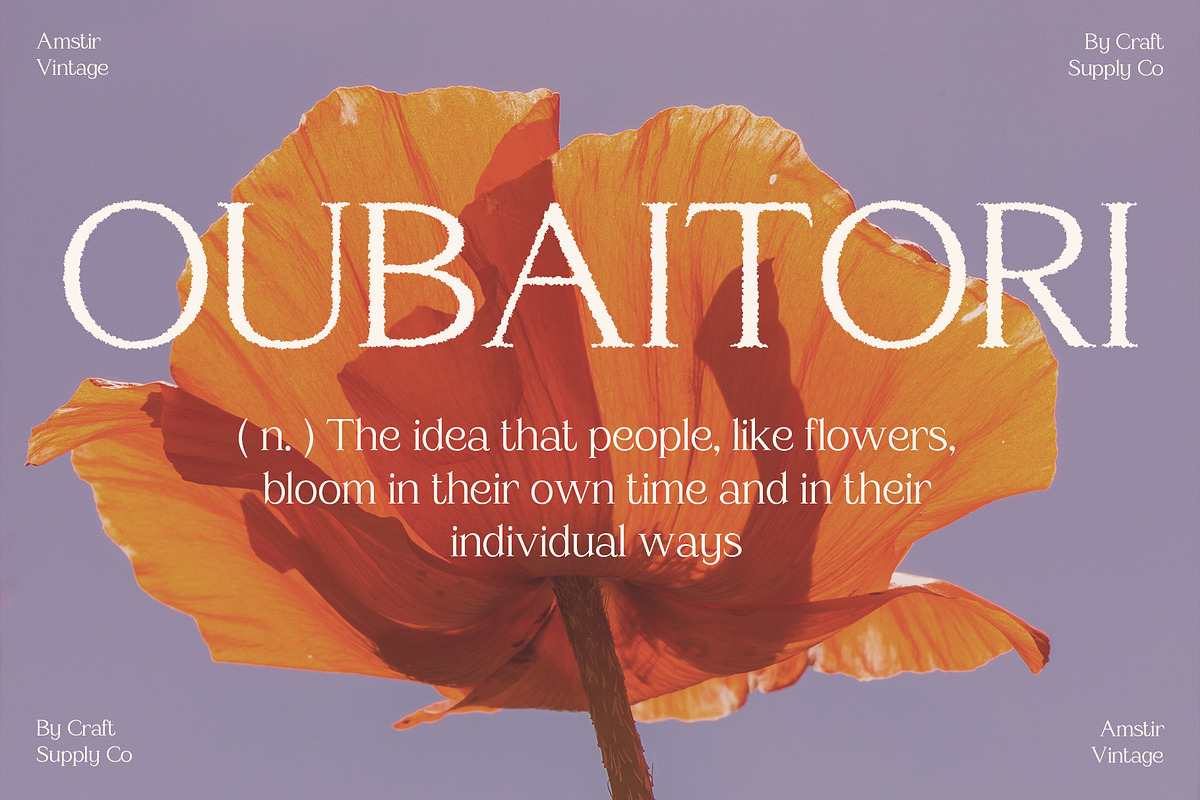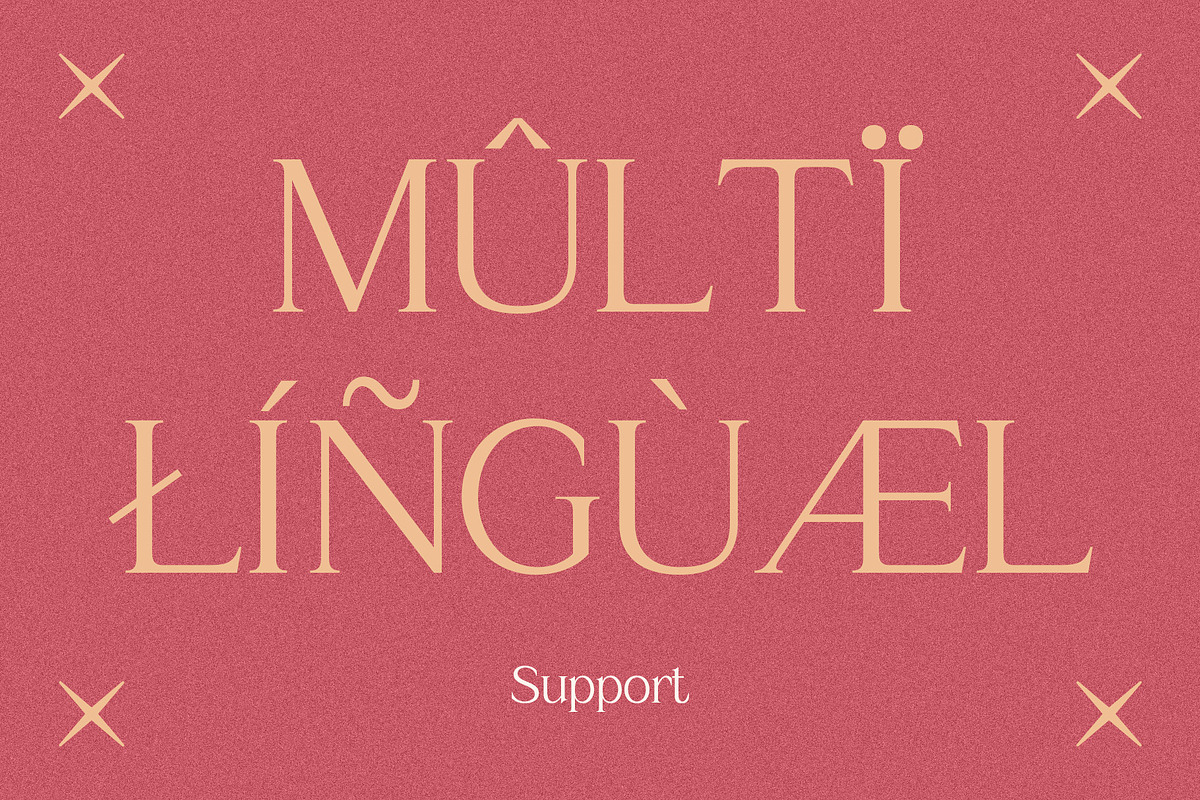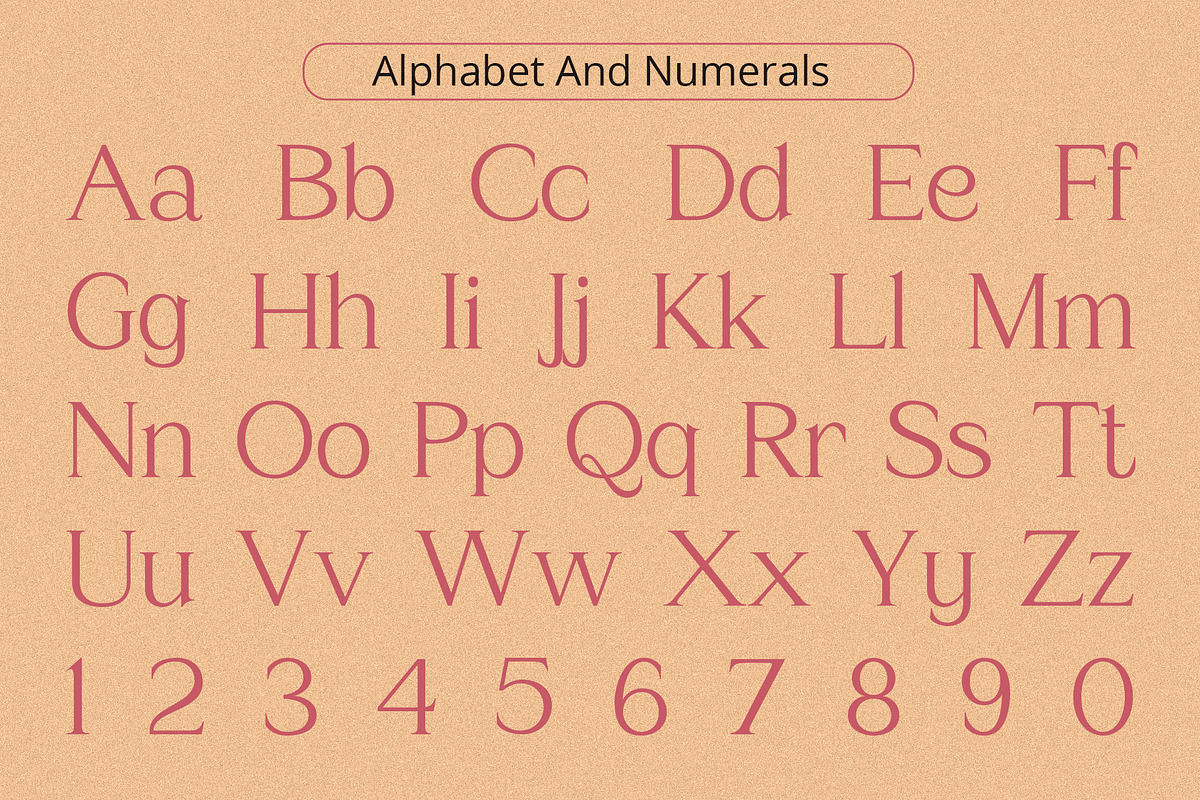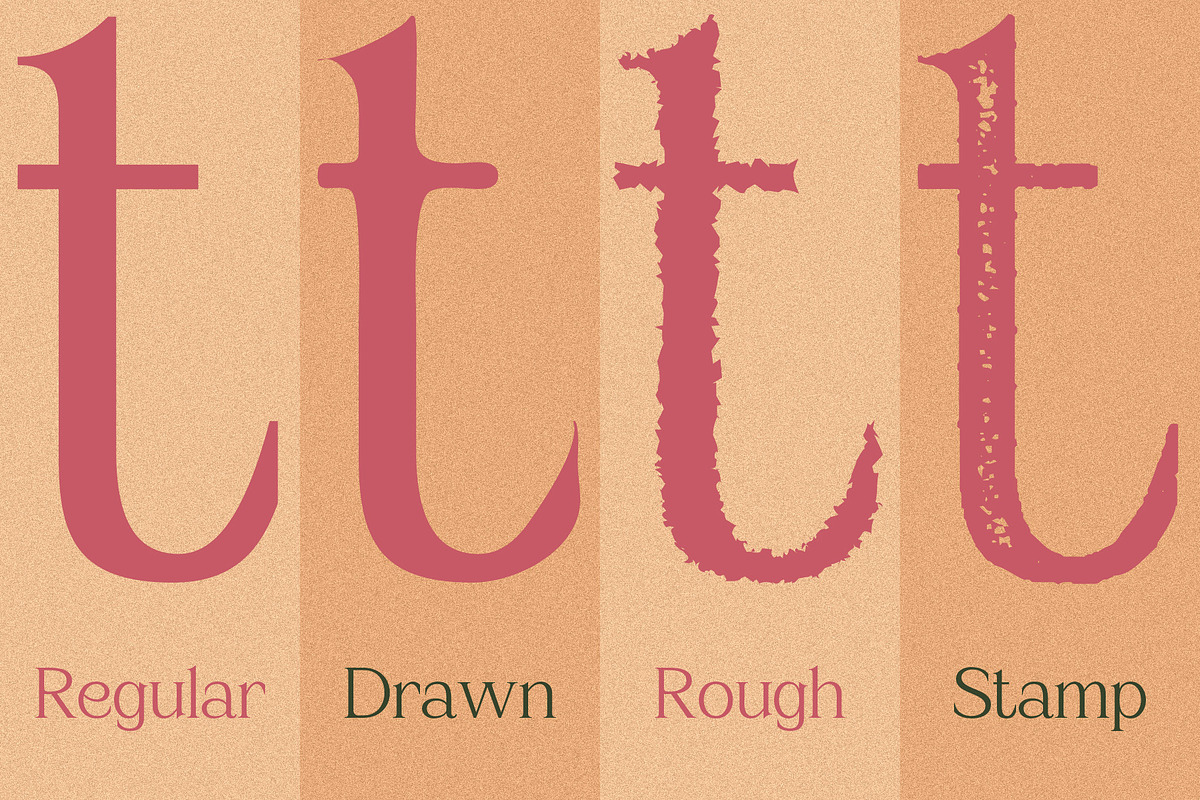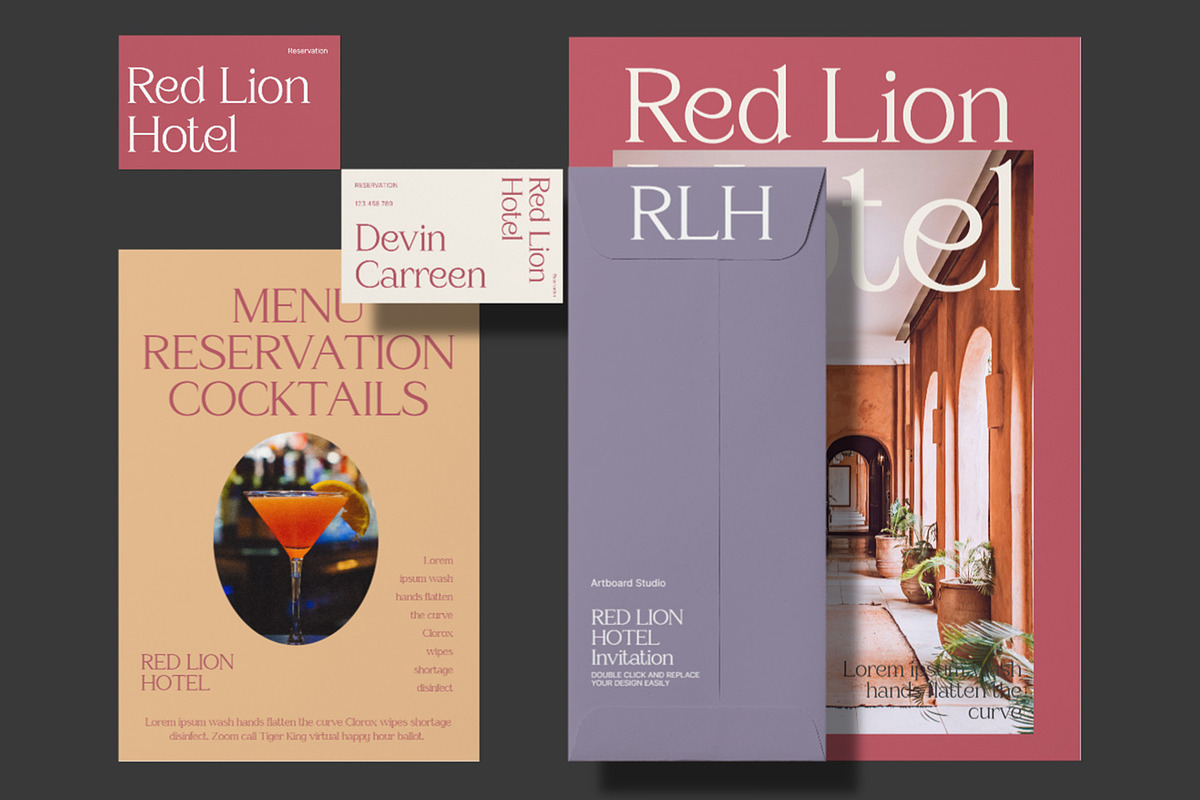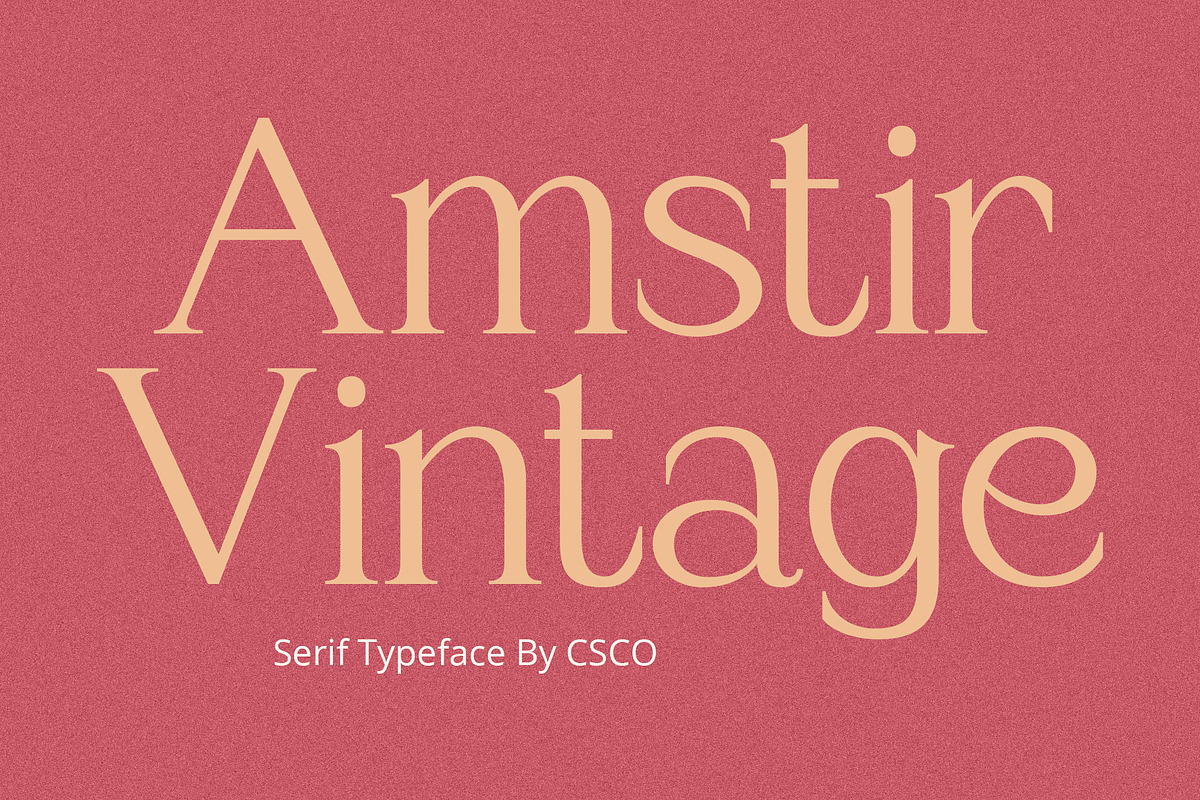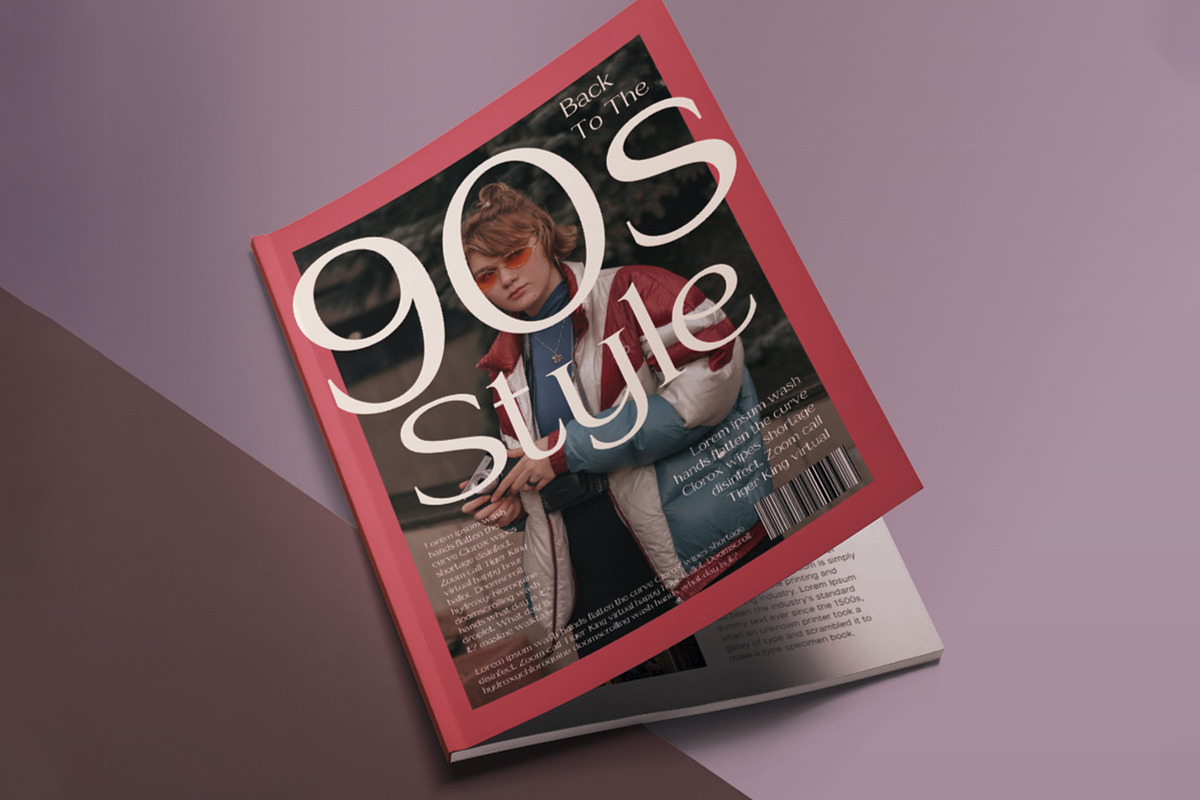
Amstir Vintage – Serif Stamp Font
Introduction to Amstir Vintage Font Amstir Vintage is a unique serif font with a vintage flair. It combines classic elegance with a modern twist. This font stands out for its versatility and charm, perfect for various design needs.
Distinctive Features The font features a stamp-like texture, giving it a handcrafted feel. Its rough edges add character, reminiscent of traditional printing techniques. Every letter in Amstir Vintage is carefully drawn, ensuring a harmonious blend of old and new styles.
Usability and Applications Amstir Vintage Font is highly readable, making it suitable for both digital and print media. It excels in branding, packaging, and editorial design. Furthermore, its distinctive style enhances any project that requires a touch of nostalgia.
Accessibility and Appeal With its straightforward design, Amstir Vintage is accessible to a wide range of audiences. Its simplicity allows for easy integration into various designs. Moreover, this font appeals to those who appreciate a blend of vintage and contemporary aesthetics.
- Amstir Regular
- Amstir Drawn
- Amstir Rough
- Amstir Stamp